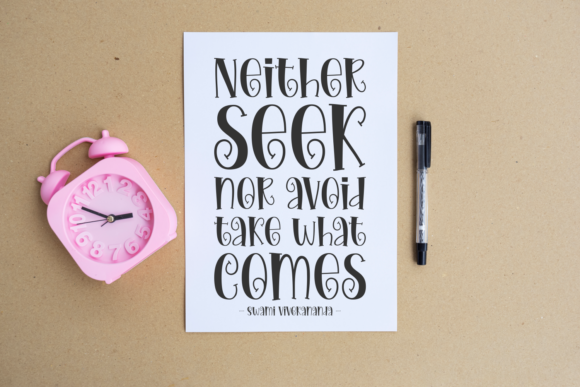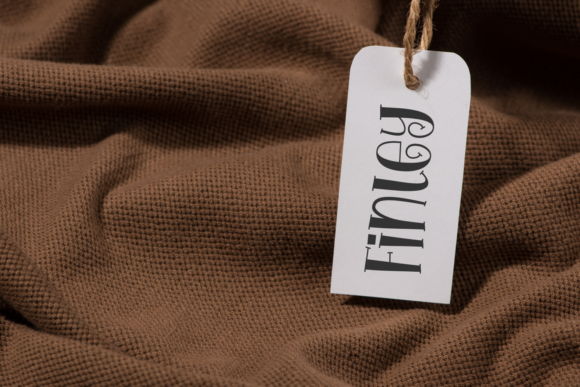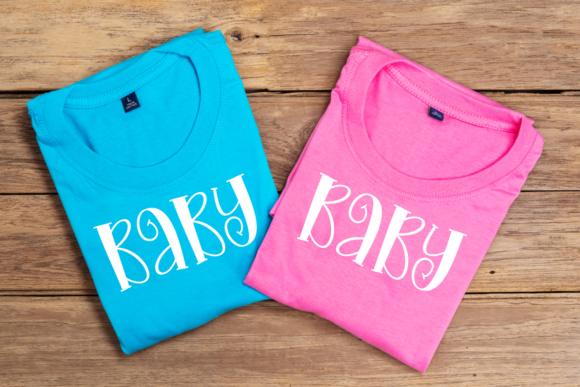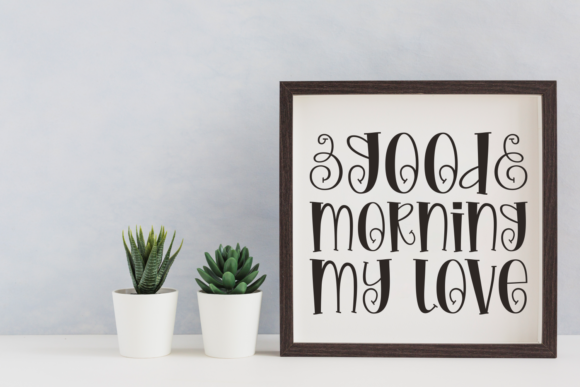
Introducing Cheerful Smile Font: Add a Joyful Touch to Your Designs
Are you tired of using the same old fonts in your craft and design projects? Look no further! Cheerful Smile Font is here to bring a burst of joy and uniqueness to your creations. This delightful display font is perfect for designers, crafters, and anyone looking to add a personal touch to their work.
What is Cheerful Smile Font?
Cheerful Smile Font is a carefully crafted display font designed to spread happiness and positivity. Its playful and cheerful vibe makes it an ideal choice for a wide range of projects, from DIY crafts to professional designs. Whether you’re creating greeting cards, party invitations, or social media graphics, this font is sure to make your work stand out.
Key Features of Cheerful Smile Font
- Unique and Playful Design: Cheerful Smile Font boasts a one-of-a-kind design that’s sure to capture attention and bring a smile to your audience’s faces.
- Joyful and Uplifting: The font’s cheerful vibe makes it perfect for projects that require a positive and uplifting tone.
- Easily Readable: Despite its playful design, the font remains easily readable, ensuring your message is conveyed clearly.
Use Cases for Cheerful Smile Font
Cheerful Smile Font is versatile and can be used in a variety of projects, including:
- Greeting Cards and Invitations: Add a personal touch to your greeting cards, invitations, and party decorations with this cheerful font.
- Social Media Graphics: Make your social media posts stand out with Cheerful Smile Font and add a dash of personality to your online presence.
- DIY Crafts: Use this font in your DIY craft projects, such as vinyl decals, iron-on designs, and paper crafts.
- Branding and Packaging: Add a playful touch to your brand’s packaging and marketing materials with Cheerful Smile Font.
Why Choose Cheerful Smile Font?
With so many fonts available, why choose Cheerful Smile Font? Here are a few reasons:
- Unique Design: Cheerful Smile Font offers a fresh and unique design that’s sure to set your projects apart.
Cheerful Smile Font is a joyful and unique display font that’s sure to bring life to your craft and design projects. Its playful design, ease of use, and compatibility with cutting machines make it an ideal choice for designers, crafters, and DIY enthusiasts. Add a cheerful touch to your creations with Cheerful Smile Font and make your work stand out from the crowd.